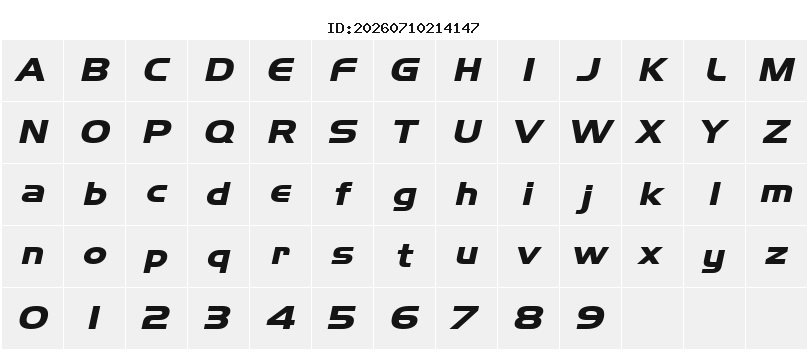
Hanzel Wide Preview
• Font Name: Hanzel Wide
• Full Font Name: Hanzel Wide Bold Italic
About Hanzel Wide.ttf
Hanzel Wide.ttf is a modern, elegant sans-serif font designed for ultimate readability and visual harmony. Perfect for branding, headlines, web design, and print materials.